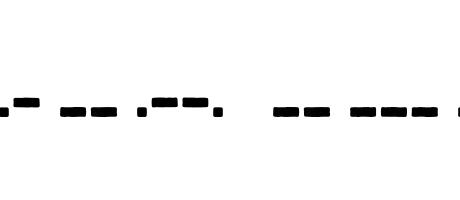
Bootcamp Morsecode
By Don Marciano
Bootcamp Morsecode: A stark, minimalist typeface echoing the urgency of coded messages. Its short, bold dashes and dots, precisely spaced, create a feeling of clandestine communication. The font's simplicity conveys a sense of immediacy and directness, as if each character holds vital information. The absence of serifs adds to its clean, functional aesthetic.